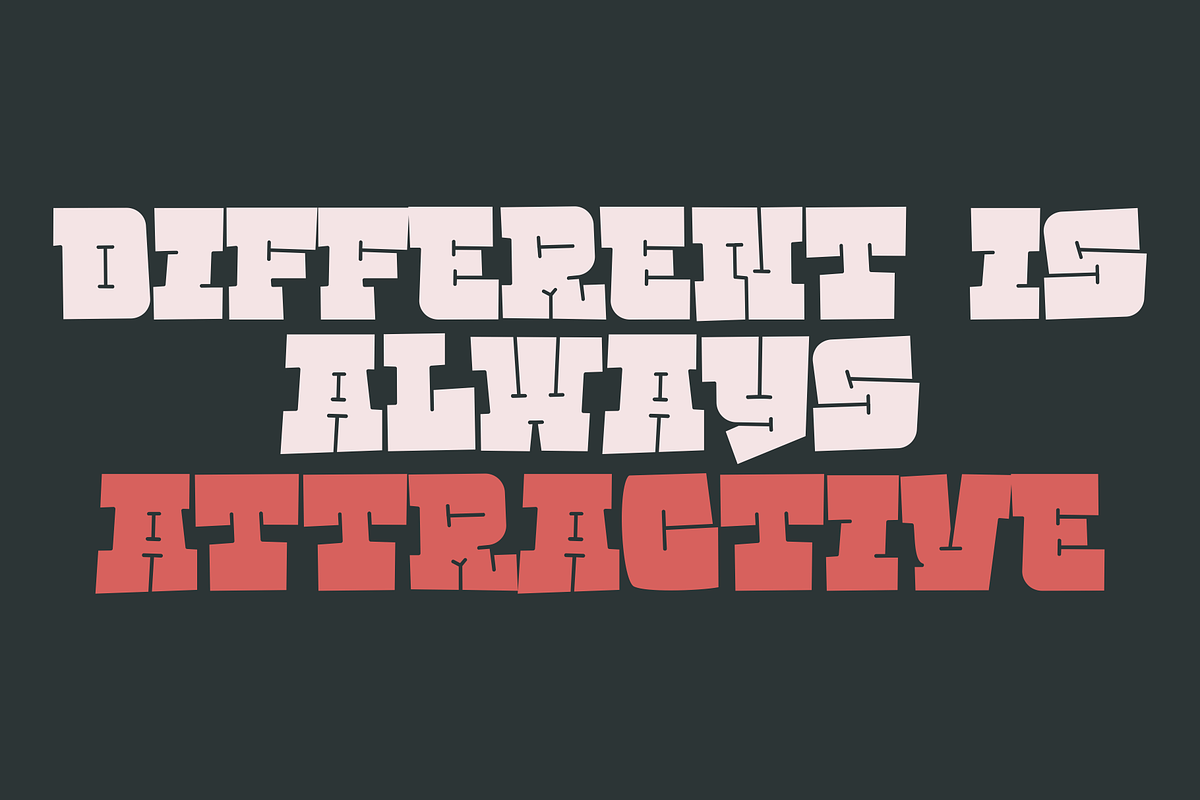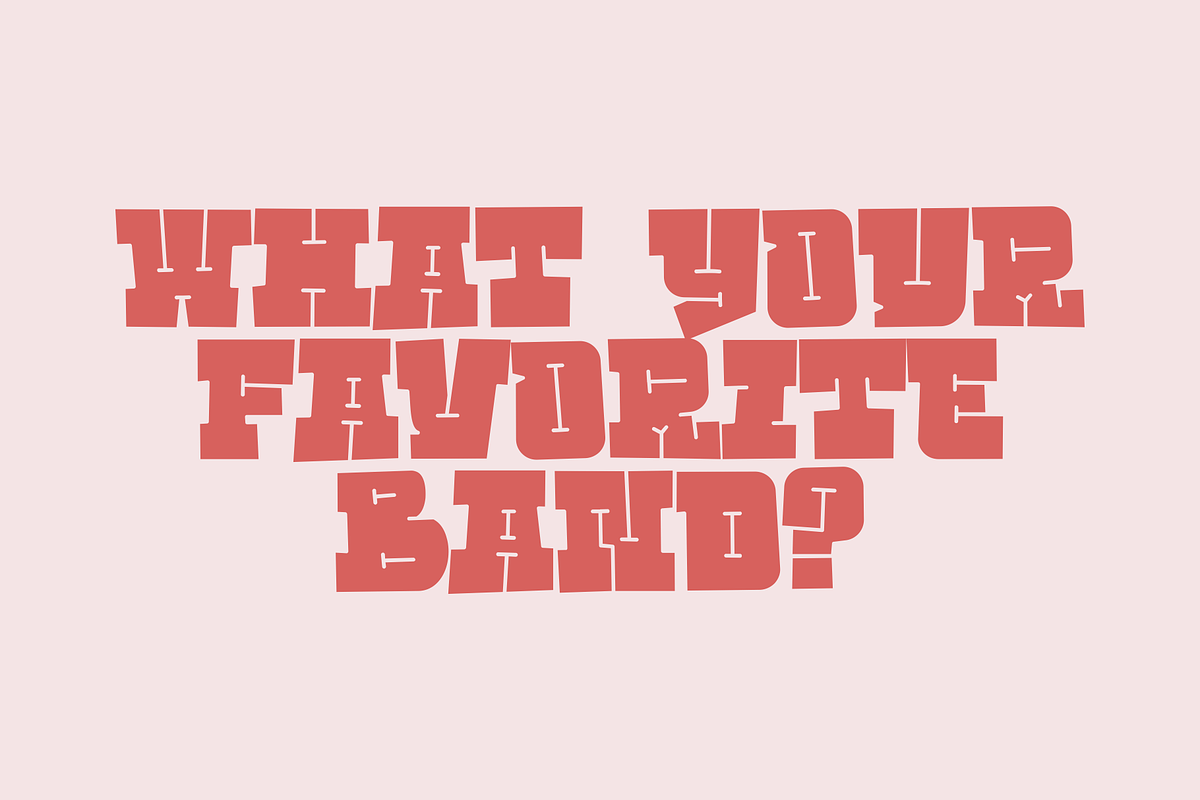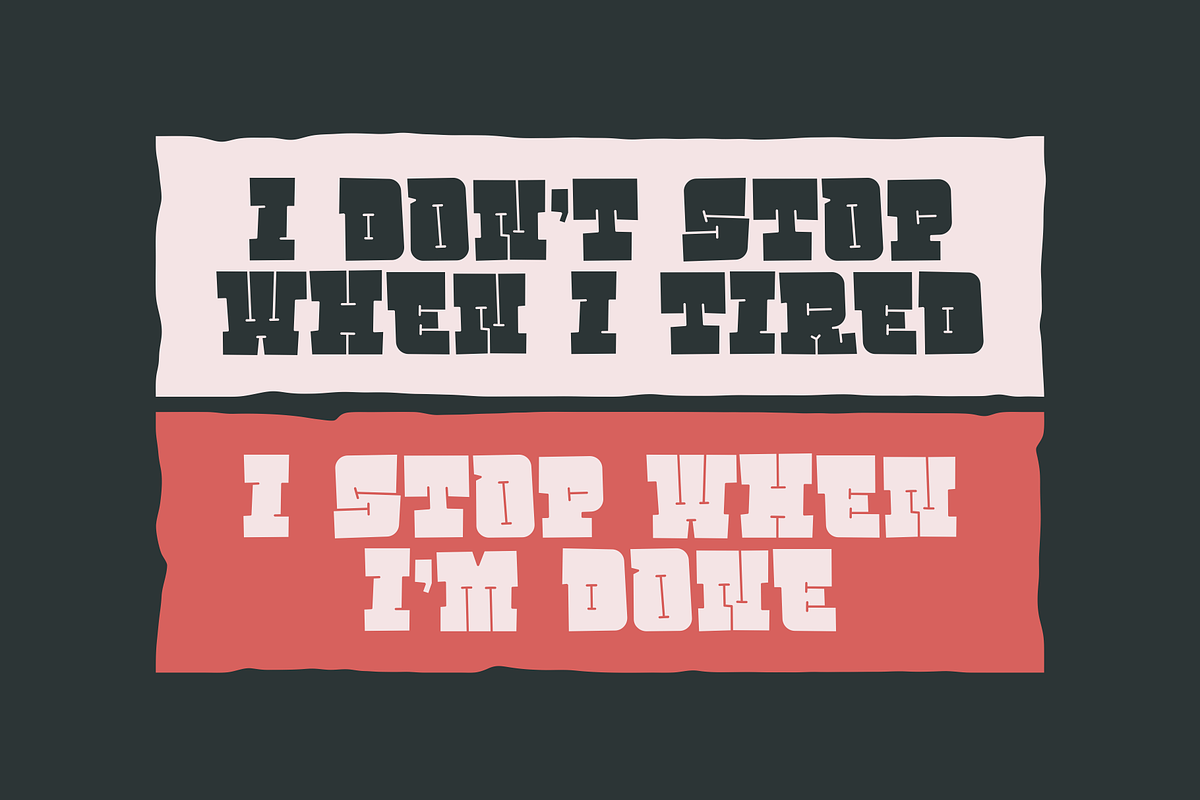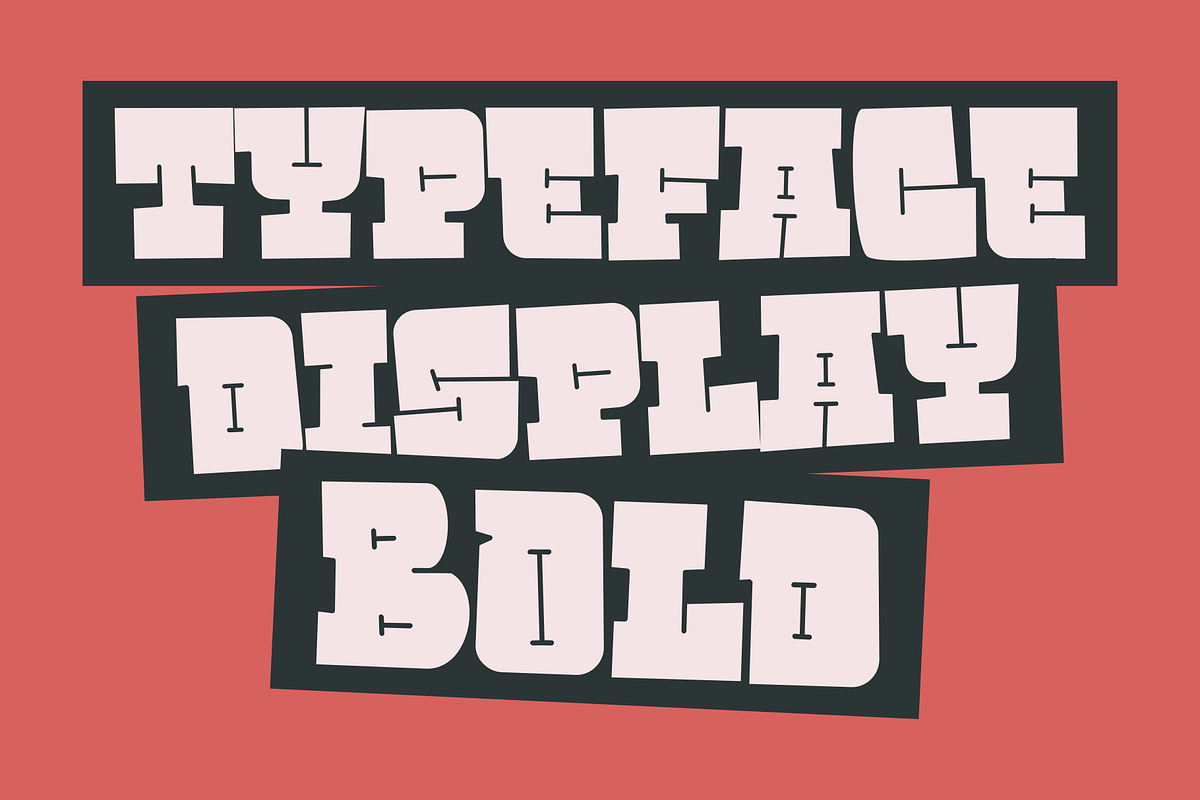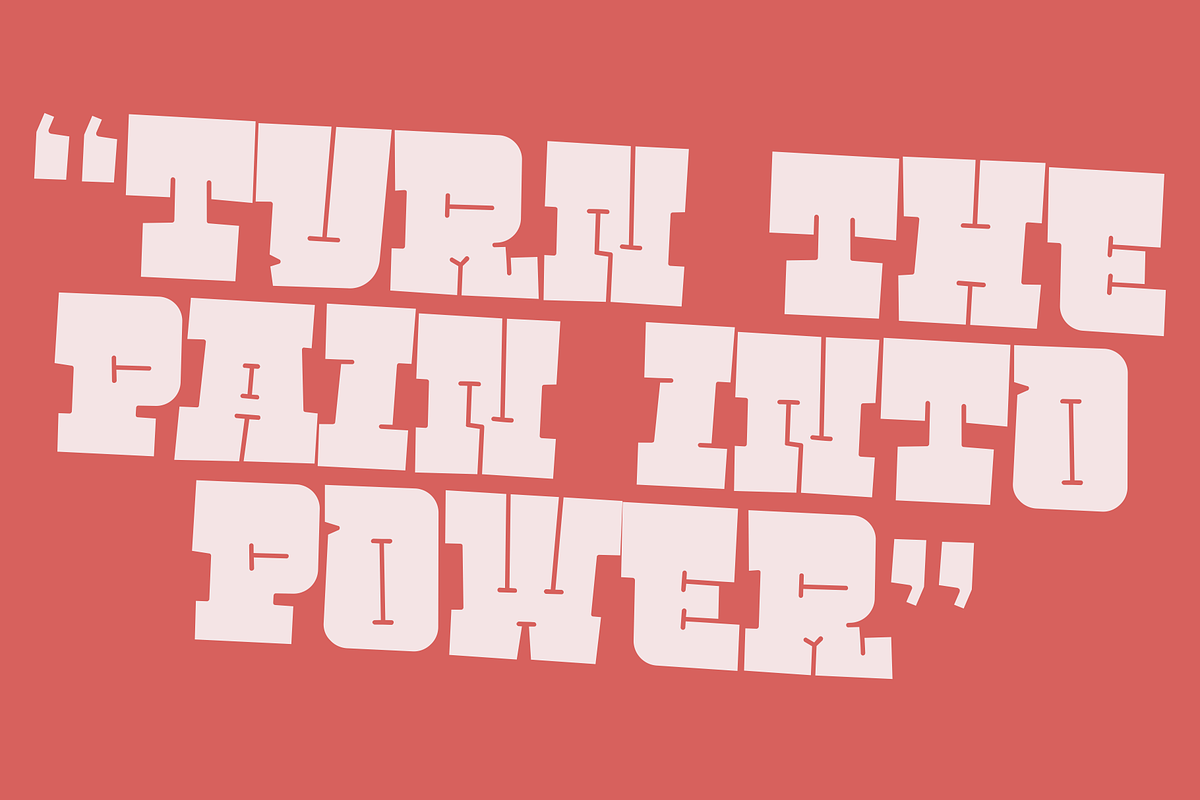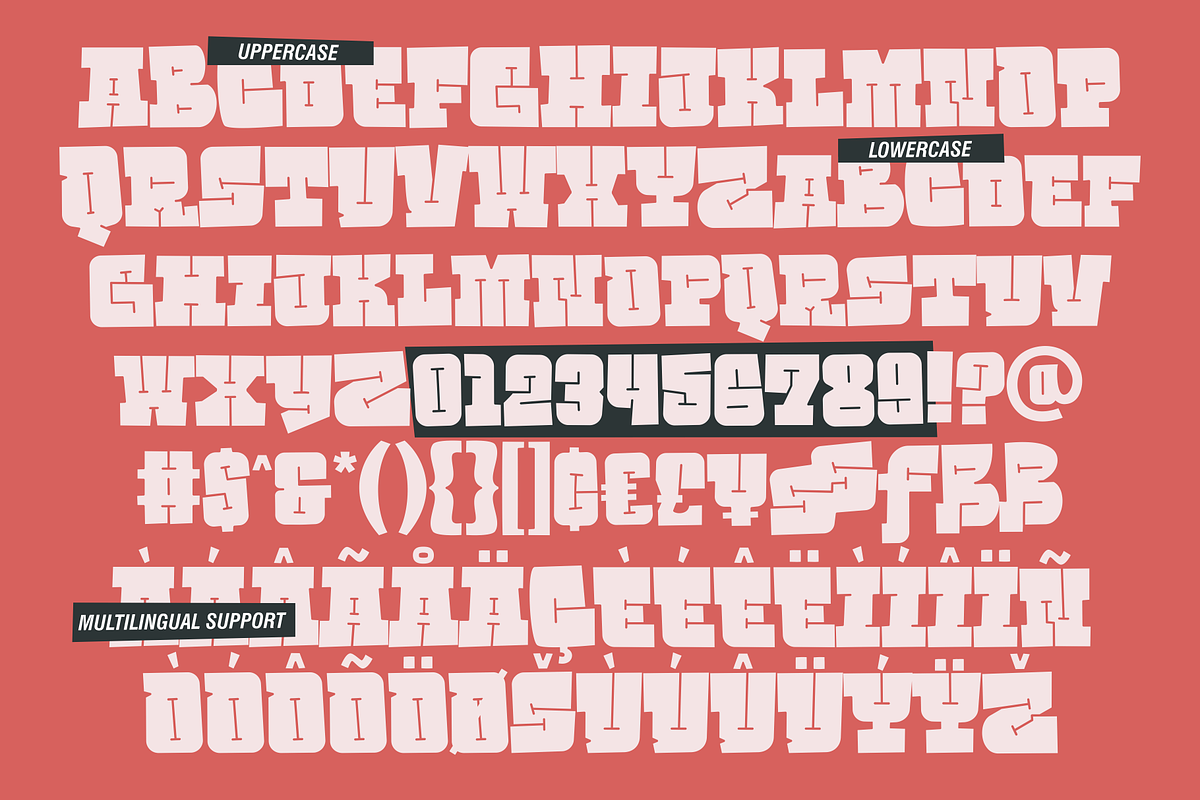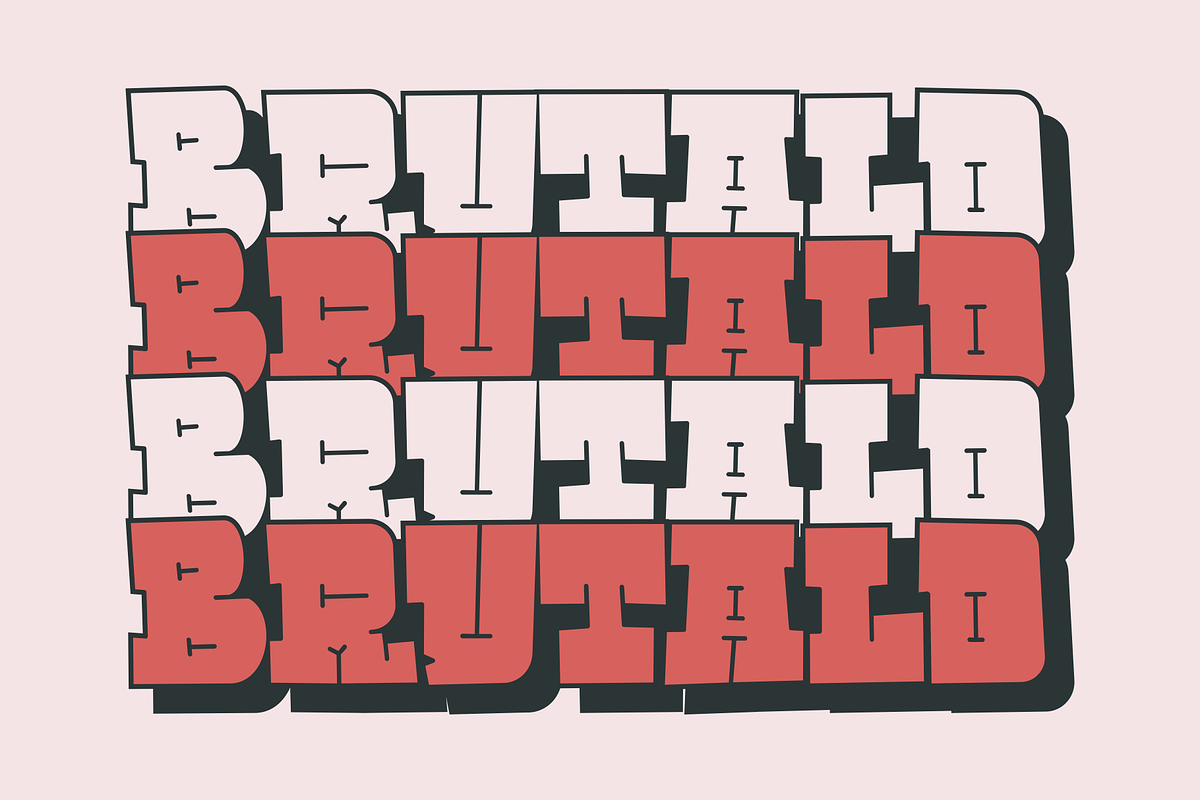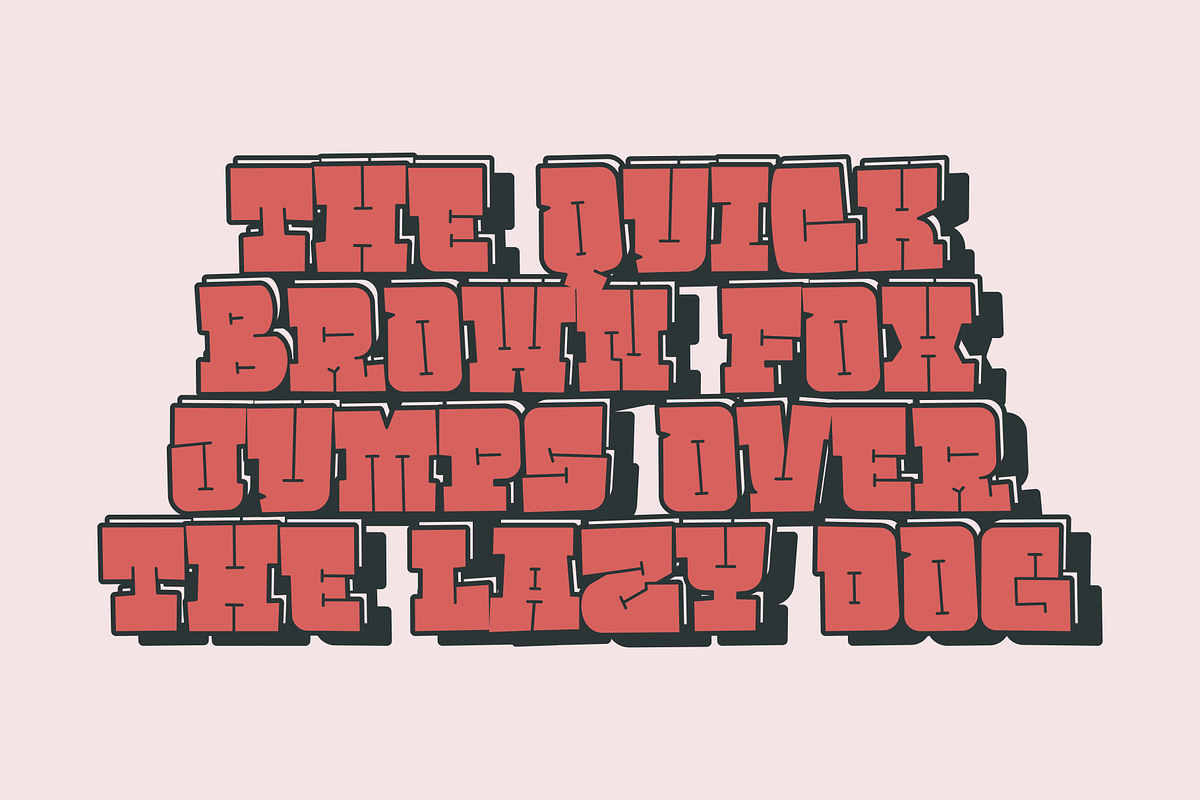
Brutald
Inspired by a graffiti font with bold features, the combination of slabs makes the font seem funky and slightly cartoonish, great for large-scale use.